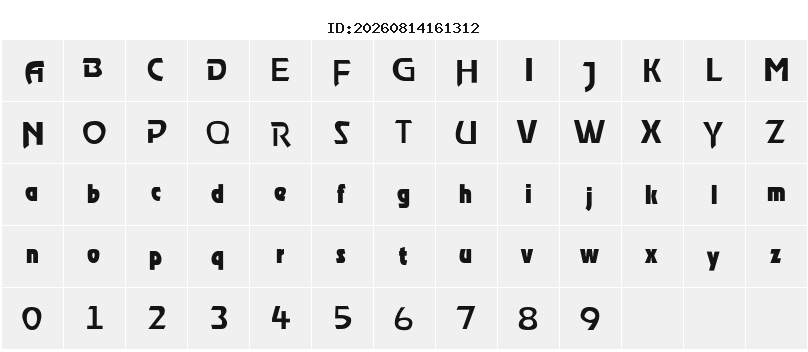
StormLight Preview
• Font Name: StormLight
• Full Font Name: StormLight
• PostScript Name: StormLight
About StormLight.ttf
StormLight.ttf is a modern, elegant sans-serif font designed for ultimate readability and visual harmony. Perfect for branding, headlines, web design, and print materials.